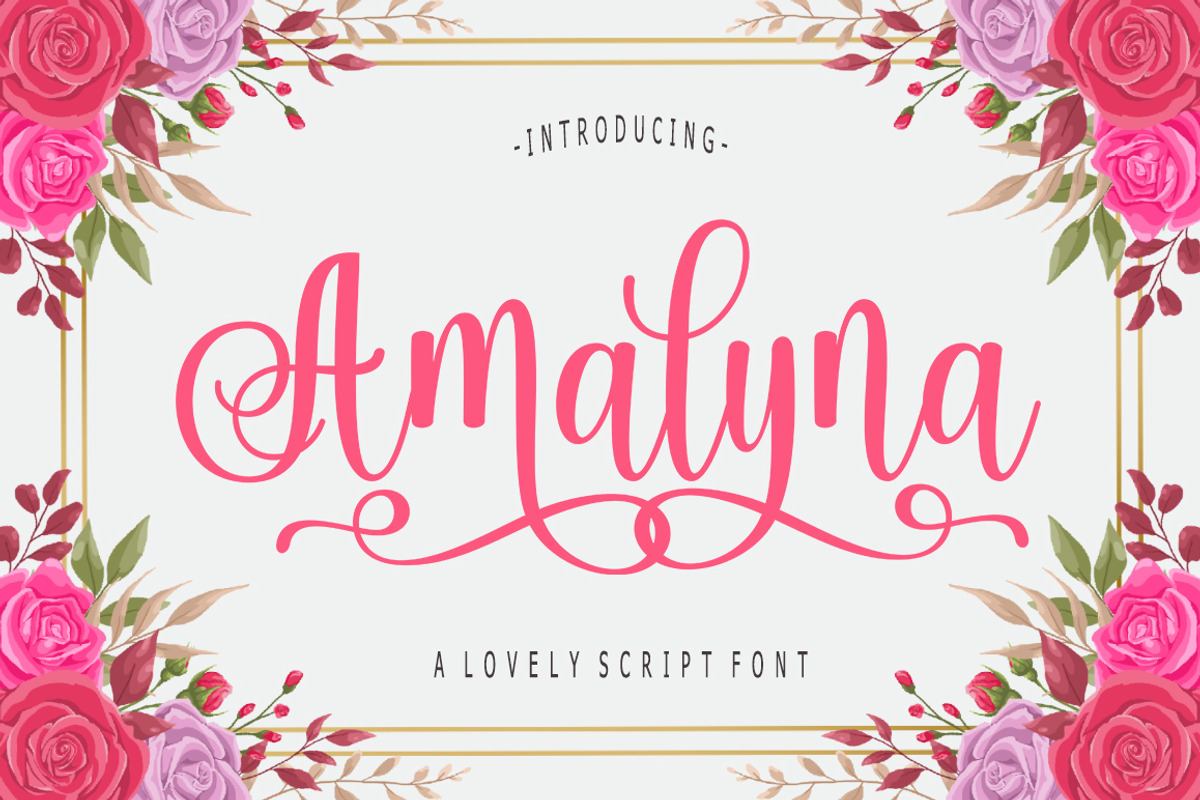
Amalyna Script Font Free Download is an elegant and flowing handwritten typeface designed to bring a personal and refined touch to your designs. With its smooth curves and sophisticated strokes, this font is perfect for wedding invitations, luxury branding, greeting cards, and any project that requires a touch of grace and class.
Its graceful, calligraphic style adds an air of beauty and elegance, making it ideal for high-end marketing materials, fashion designs, and special events. Whether you're creating invitations, logos, or decorative text, Amalyna’s refined style will make your work stand out.
Designers love Amalyna Script for its versatility and timeless appeal. Ready to add a touch of elegance to your next project? Download Amalyna Script Font Free Download and infuse your designs with graceful charm.